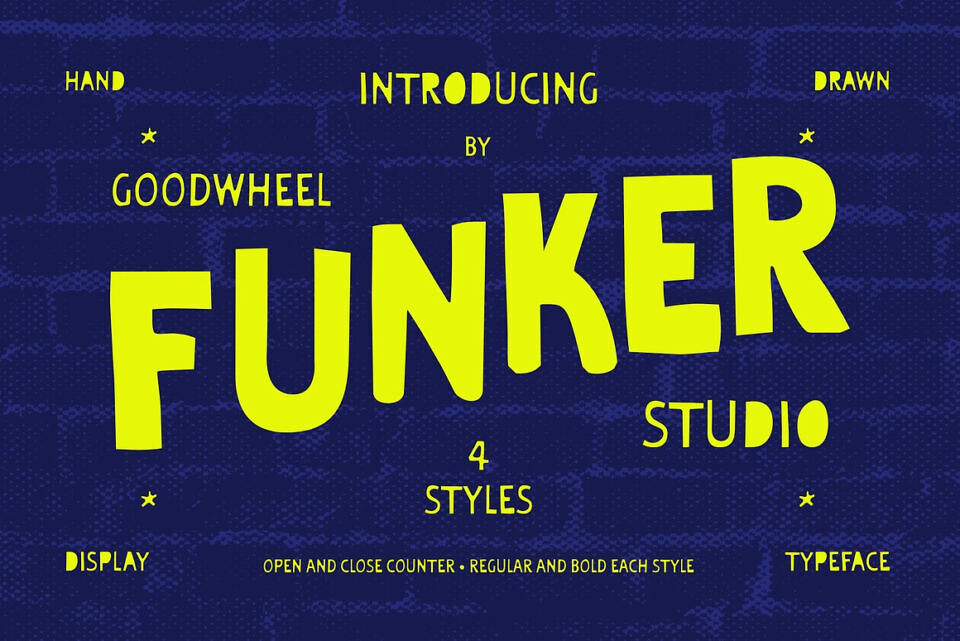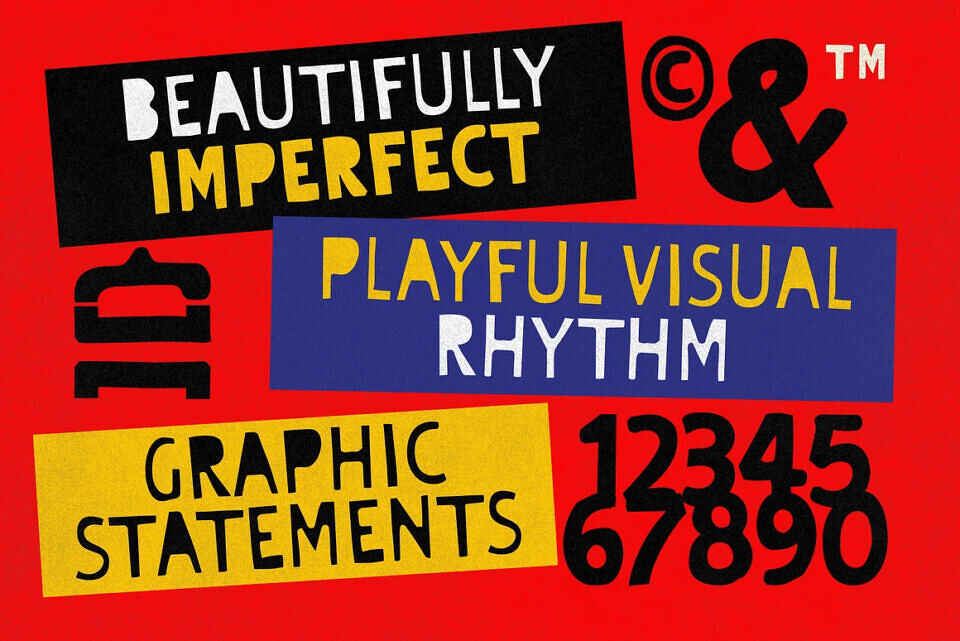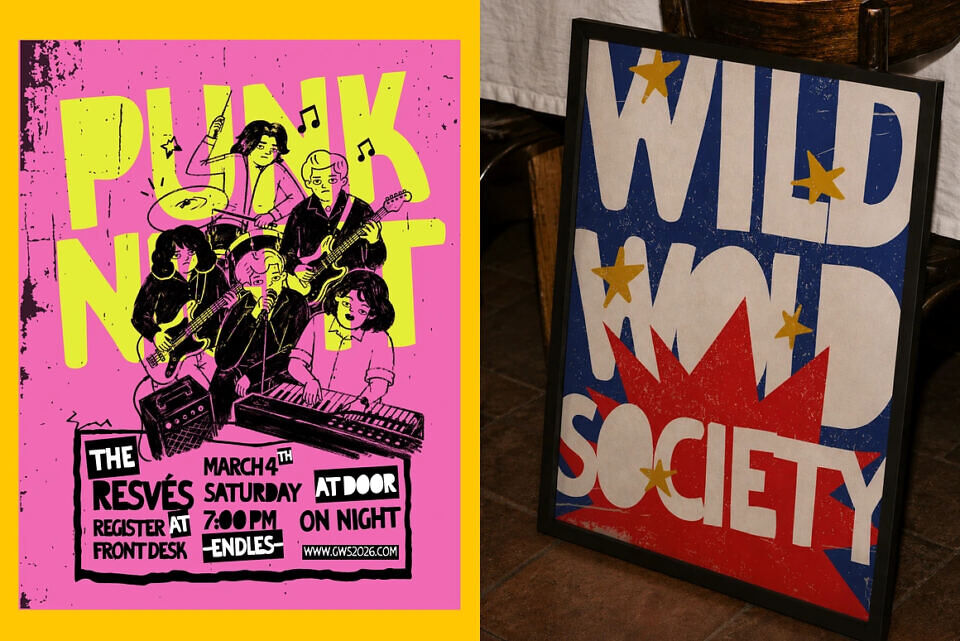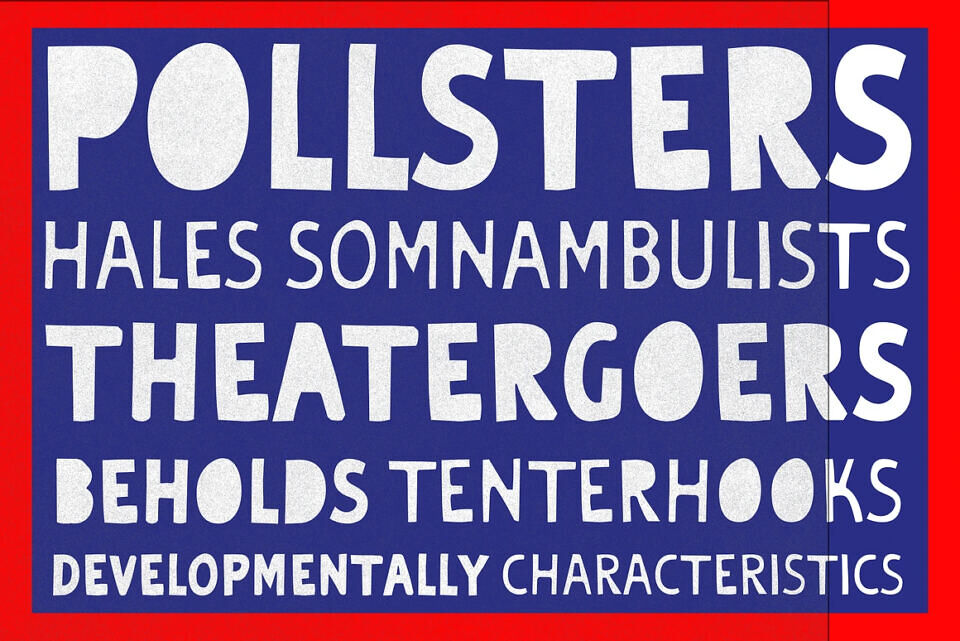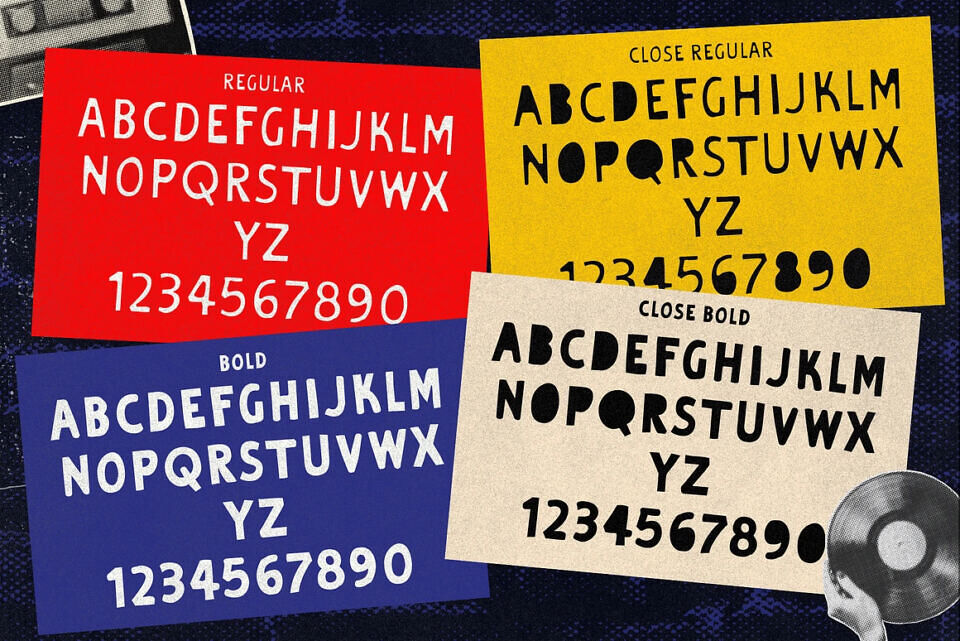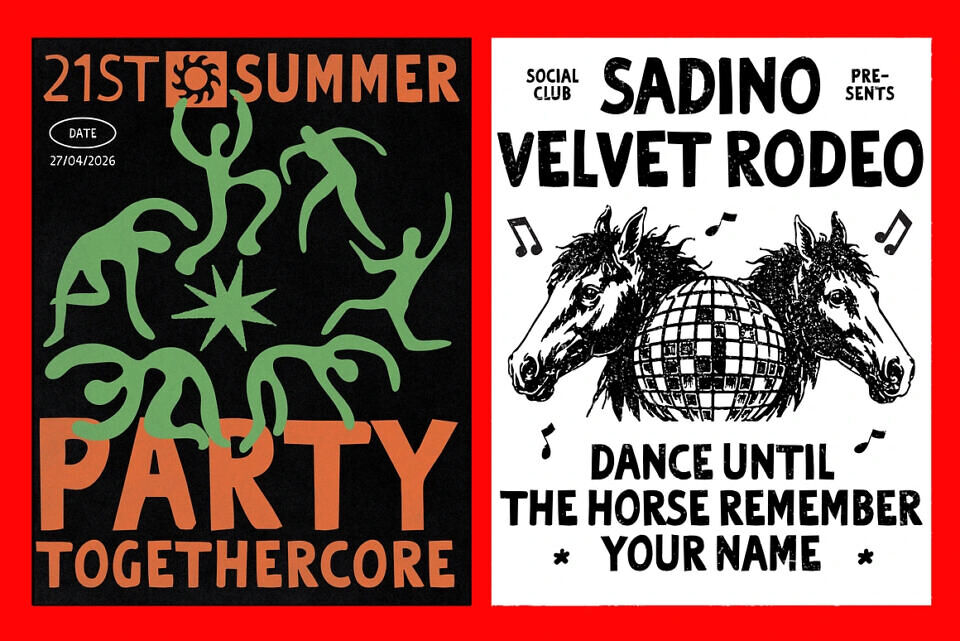
FUNKER is a bold handcrafted display font packed with playful energy and expressive personality. Inspired by vintage folk lettering, hand-painted signs, and imperfect handmade typography, FUNKER features organic shapes, irregular proportions, and charming character details that make every word feel alive.
Its strong presence makes it perfect for logos, branding, packaging, posters, café menus, restaurant identities, children’s products, social media graphics, merchandise, and editorial headlines. Includes Regular, Close Regular, Bold, Close Bold.